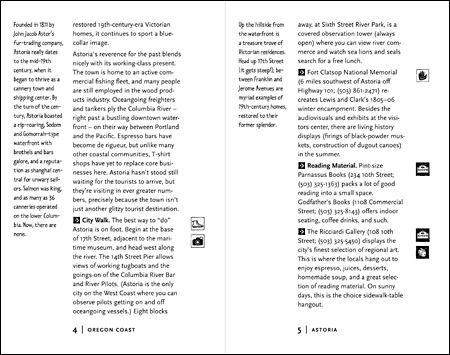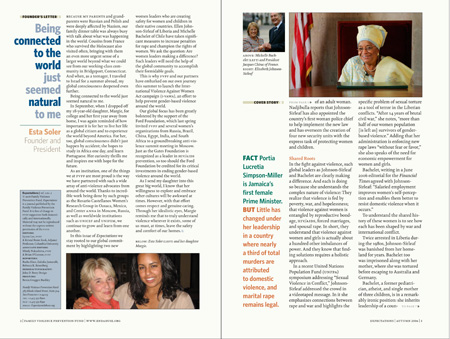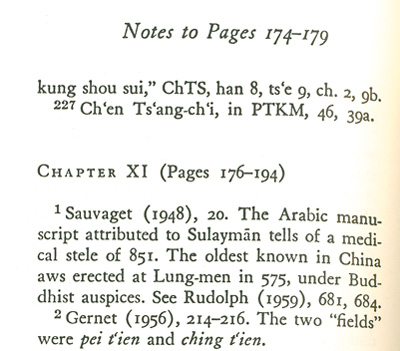
dot-font: Designing Running Heads
Learn the best practices for designing these inconspicuous but essential book page elements.
Sometimes the humblest and most inconspicuous elements of design turn out to be essential. A case in point in printed publications is the running head and its frequent sidekick, the page number. They may be humble, almost unnoticed, but if they’re done right they serve as signposts, telling you, the reader, where you are. The running head is part of the roadmap to any publication.
Most paper publications have page numbers, and a lot of them also have running heads (or running feet, if they’re at the bottom of the page). Sometimes the page number and the running head are in separate places on the page; sometimes they’re combined.
When you’re looking at a page of a larger document, whether it’s a book or a magazine or a business report, the running head tells you what publication this page is part of, and the page number tells you where you are in that publication. And in this day and age, when we often photocopy or scan a few pages for later use, the running head identifies what publication these pages came from, and who wrote them.
Running heads are purely navigational aids; they have no other function, and they’re not supposed to draw attention to themselves. But there’s a tendency for page designers, especially in books, to think of the running head as a chance for them to display their creativity. That’s almost always a mistake. Neither the running heads nor the page numbers should be decorative; they should simply be there when you need them, right where you expect them, and the rest of the time they should stay out of the way.
Where to Put It
The simplest way to format a running head is to make it a line of text, in the same size and typeface as the main text, but placed slightly above or below the text block on the page. It may be flush left or flush right or centered (never justified). The running head needs to be distinguished from the main text somehow (Figure 1), whether it’s by something as simple as using italics and adding a blank half-line or by something more active, such as adding a rule, changing the size, or even changing the typeface.
Figure 1. If it weren’t for the capital letters in “HADRIAN THE SEVENTH,” it would be too easy to mistake the running head for another line of text.
In a book of prose, sometimes the page number (folio) is separate from the running head; the running head, for instance, might be across the top of the page, while the folio appears at the bottom. But in many books, and most other publications, the page number is incorporated into the running head or running foot: one small block of type, with two or more kinds of information in it.
Usually, the page number is either centered or flush to the outside of the text block. We tend to look for the page number at the bottom outside corner of the page; if it’s not there, we look at the top outside corner. When the text block is justified, one common arrangement is to put the page number at the bottom, flush to the outside of the text block, and the running head at the top, flush to the inside edge (Figure 2). This way, if some of the running heads are long, they’ll still be unobtrusive, yet the page number will always be easy to find.
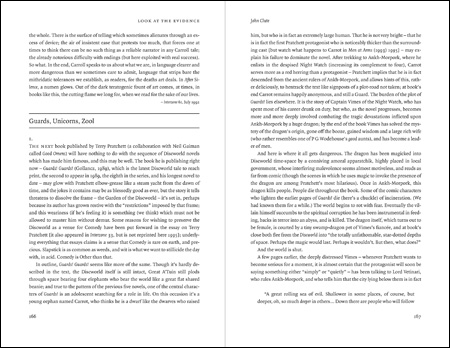
Figure 2. Page spread with running heads flush to the inside margin, page numbers (at the bottom) flush to the outside margin.
Another common way of handling these two elements is to keep them separate, but on the same line, either at the top of the page or (more rarely) at the bottom. The running head may be set flush to the inner margin, and the page number flush to the outer margin; sometimes, to tie them together, a thin rule may run under them, the full width of the text block (Figure 3).
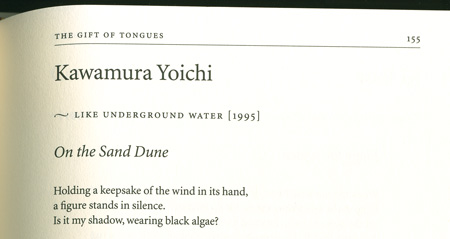
Figure 3. On a complicated page, a rule under the running head can help to define the text area.
There’s a practical advantage to keeping both the running head and the page number at the top of the page. If the text may end at different points on different pages, or if you might need to add a line or cut a line at the bottom of the page to avoid a widow, then a running foot would draw attention to these variations; a running head would not.
How to Set the Type
What’s the best typographic treatment of the running head? Ordinary text type will almost certainly have ascenders and descenders, which are a great aid to reading in text but make the running head look visually busy. That’s why it’s so common to set a running head or running foot in small caps (Figure 4). If the text font includes true small caps, you can use them, suitably spaced, to make a very effective running head. (Be sure to letterspace the small caps slightly, so they don’t look clumped together, and be sure to use either old-style figures or specially designed small-caps figures, not full-height lining figures. I usually like the effect of old-style figures with small caps, but in a running head it might be subtler to use small-caps figures, if they exist in the font.)